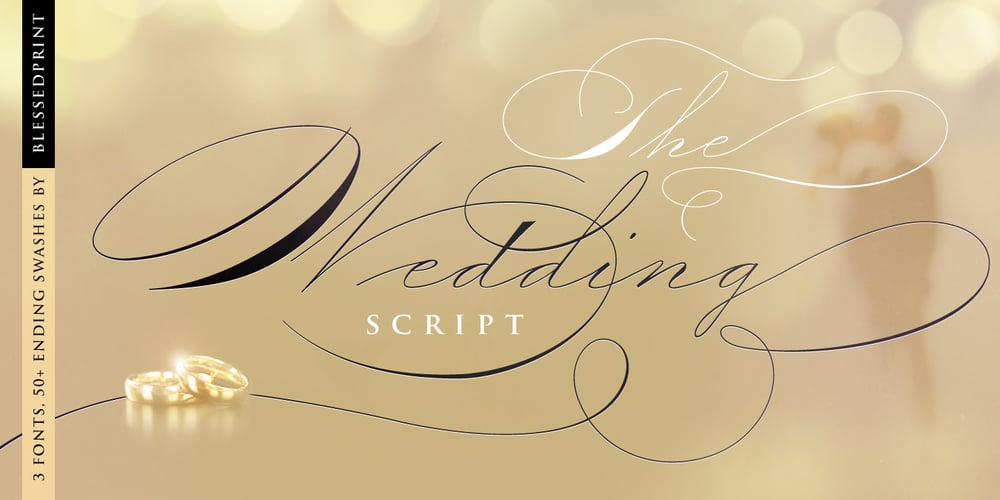
The Wedding Script Font Family was designed by Dmitrii Mikitenko and published by BlessedPrint. The Wedding Script contains 3 styles and family package options. To be like a pro spencerian calligrapher now is easier with The WEDDING Script. The Wedding script is a high-quality font-family with more then 2000 glyphs. It is imitating original zanerian style with numerous swashes and swirls. It is very easy to use. Activate contextual alternate, type any number after a letter and get your alternate: W1, W2, W3 etc… Capital letters have 7-8 options. My dream was to create a script that can imitate professional handwriting without efforts! Don’t stop creativity process and just type numbers after letters. It is fast and easy. You can see results instantly as a real calligrapher does! Watch how The Wedding Script works in Photoshop: type your text and start playing! You’ll find more then 50 elegant swashes.